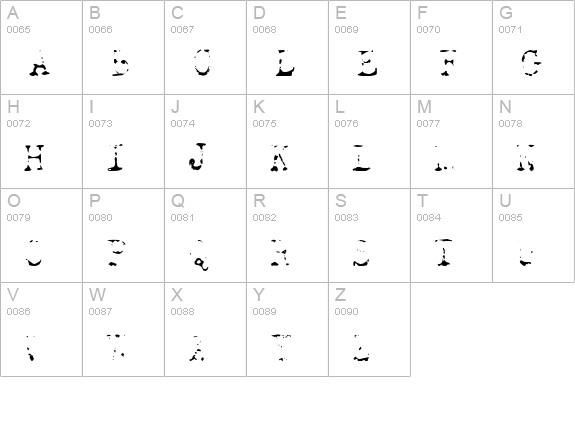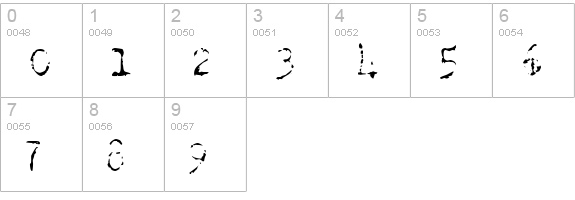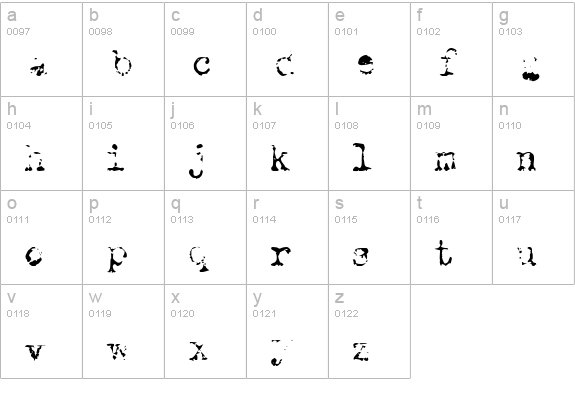
Introducing the Old Typewriter Skimpy font, a nostalgic and charming typeface that brings the timeless appeal of vintage typewriters to your digital projects. This unique font captures the essence of old-school typewriters with its uneven lettering and classic aesthetic, perfect for adding a touch of retro flair to any design. Old Typewriter Skimpy font is a versatile typeface that works well for various projects, from branding and logos to posters and packaging. Its vintage look evokes a sense of nostalgia and authenticity, making it ideal for creating a distinctive and memorable visual identity. Best of all, Old Typewriter Skimpy font is available for free download at FontsMarket.com, allowing you to easily access this charming typeface and incorporate it into your creative endeavors without any cost. Embrace the vintage charm of old typewriters with Old Typewriter Skimpy font and add a touch of old-world elegance to your designs today.